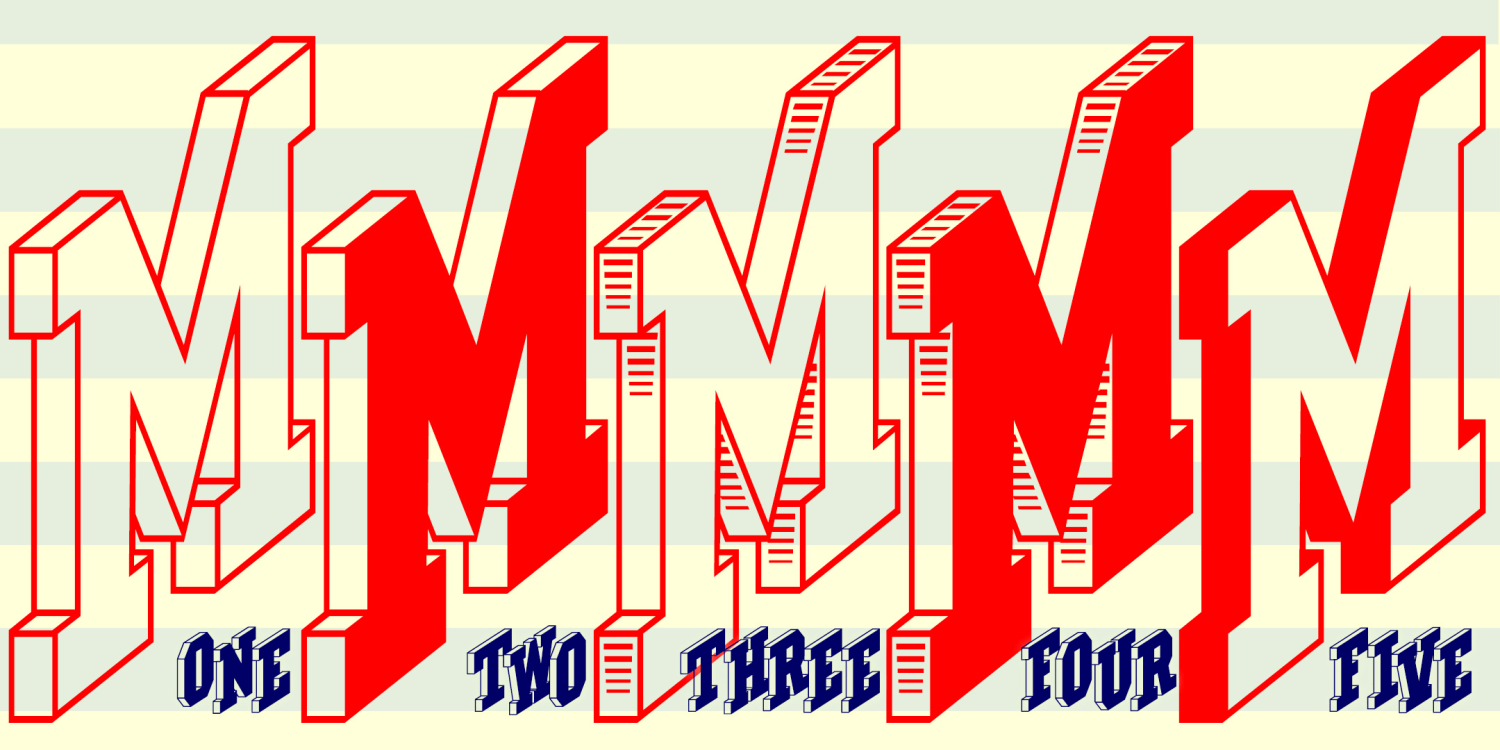
Marching Monograms
MARCHING MONOGRAMS is a unique font set for making custom monograms in a distinctive three-dimensional style. Inspired by 19th-century advertising, the letters stand up, creating an active and eye-catching arrangement. There are 5 different fonts with different treatments of the letters and edges that can be mixed and matched as you choose.